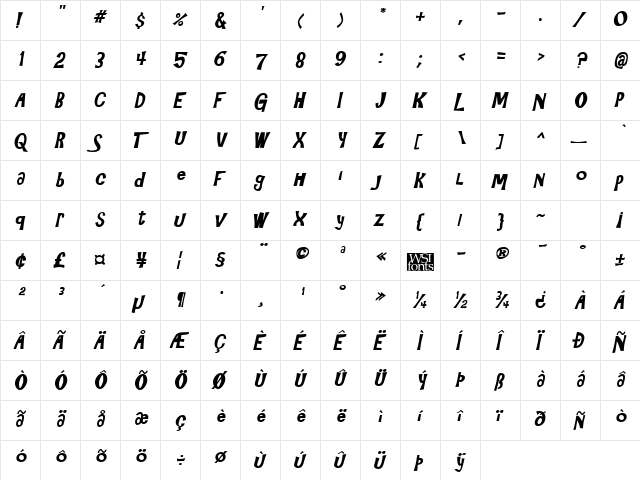
3HourTour BoldItalic
Design Context for 3HourTour Typeface
3HourTour is a composed and adaptable typeface that performs quietly and consistently across a wide range of design contexts. The slanted form adds forward momentum and visual energy. The heavy weight commands attention and anchors typographic hierarchies.
Pro Tip: Use 3HourTour for emphasis, pull quotes, and subheadings where its slanted energy can add rhythm to the layout.